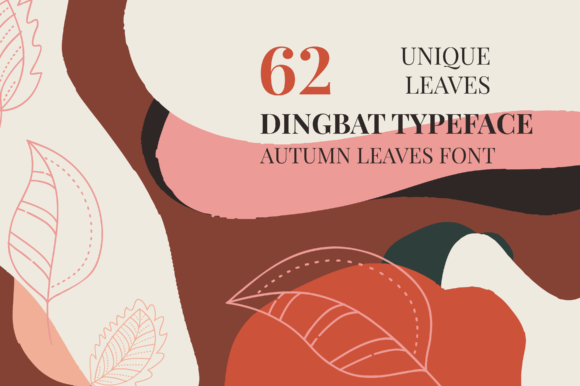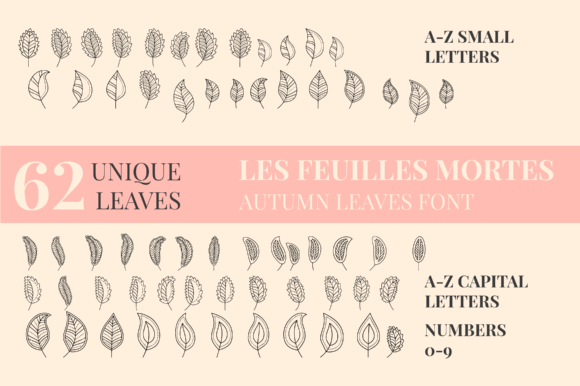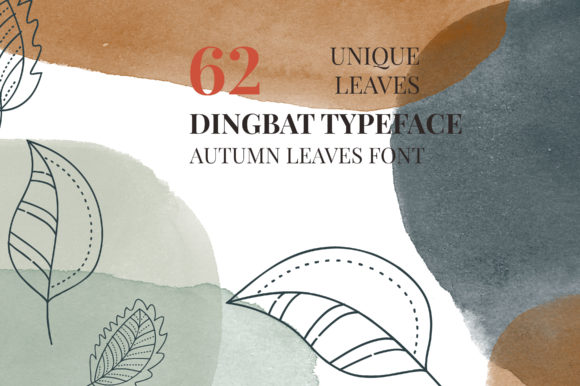
Autumn Leaves Font
About Autumn Leaves Font
“Autumn Leaves” is a beautiful and unique dingbats font that can bring the vibrant and warm colors of autumn to your designs. With its leaf-inspired glyphs, this font offers endless possibilities for creating patterns, backgrounds, mockups, and more.
The distinct and intricate leaf designs in “Autumn Leaves” make it a versatile font that can be used in various creative projects. Whether you’re working on digital designs, print materials, or any other medium, this font can add a splendid aesthetic to your creations.
One of the key strengths of “Autumn Leaves” is its ability to generate unlimited patterns. By using the different leaf glyphs, you can create seamless patterns that evoke the beauty and essence of the autumn season. These patterns can be applied to various design projects, such as wallpapers, fabric prints, website backgrounds, and packaging designs, to name a few.
Additionally, “Autumn Leaves” can be used to create stunning backgrounds for your designs. Whether you’re designing social media posts, posters, or invitations, incorporating the leaf motifs from this font can instantly transform the background into a visually appealing and autumn-inspired element. The rich and warm colors associated with autumn can create a cozy and inviting atmosphere for your audience.
Mockups are another area where “Autumn Leaves” can shine. By using the leaf glyphs, you can create unique and thematic mockups that reflect the spirit of the autumn season. This can be particularly useful for showcasing seasonal products, such as clothing, accessories, or home decor items. The use of “Autumn Leaves” in your mockups can help create a cohesive and visually captivating presentation.
Furthermore, “Autumn Leaves” can be employed to add decorative elements or accents to your designs. Whether it’s adding a leaf border, embellishing typography, or creating illustrations, the leaf glyphs can bring a touch of nature and elegance to your artwork. These decorative elements can be utilized in a wide range of projects, including greeting cards, invitations, logos, and more.
In conclusion, “Autumn Leaves” is a beautiful and unique dingbats font that offers a wealth of creative possibilities. Its leaf-inspired glyphs can be used to generate patterns, create backgrounds, design mockups, and add decorative accents to your designs. By incorporating this font into your creative process, you can infuse your projects with the vibrant and warm colors of autumn, creating a splendid aesthetic that captivates and delights your audience.